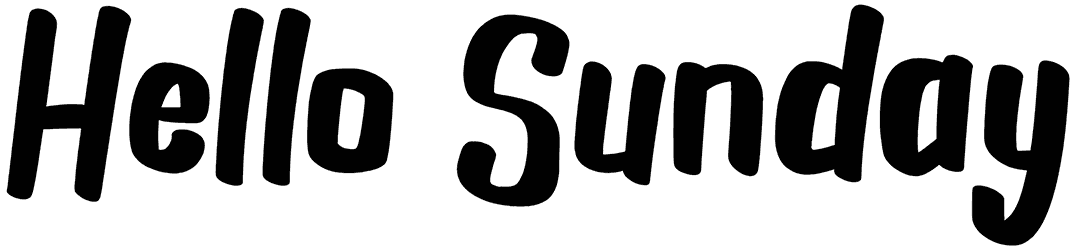
Hello Sunday Font
No one can deny the captivating and delightful mood of a cartoon font like Hello Sunday. The characters of this playful script font are designed to add a cute feeling to your words. Make a children’s book, a camping post…
No one can deny the captivating and delightful mood of a cartoon font like Hello Sunday. The characters of this playful script font are designed to add a cute feeling to your words. Make a children’s book, a camping poster, or the like with Hello Sunday font and amaze your viewers.